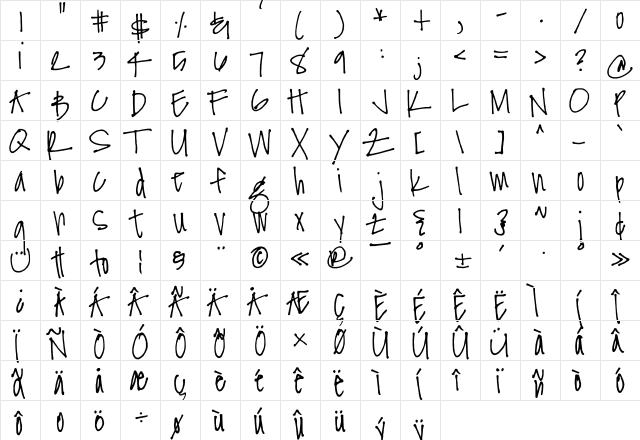
FG Nina Regular
Design Context for FG Nina Typeface
FG Nina is a composed and adaptable typeface that performs quietly and consistently across a wide range of design contexts.